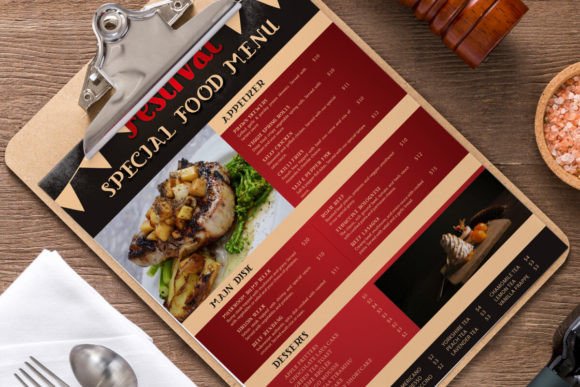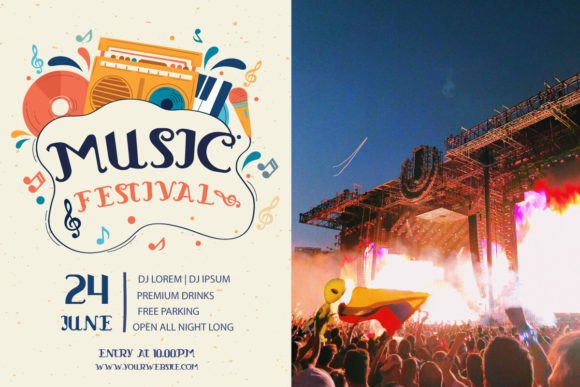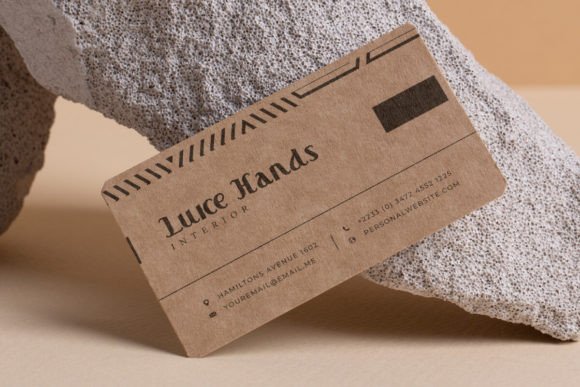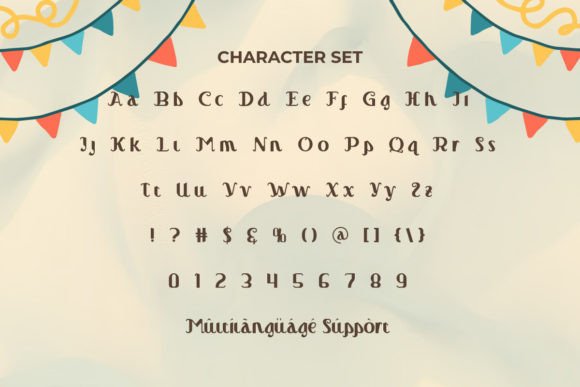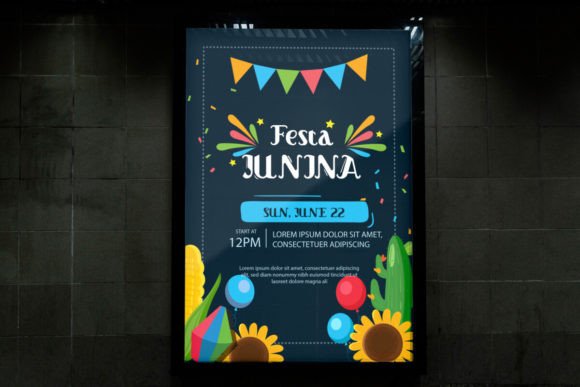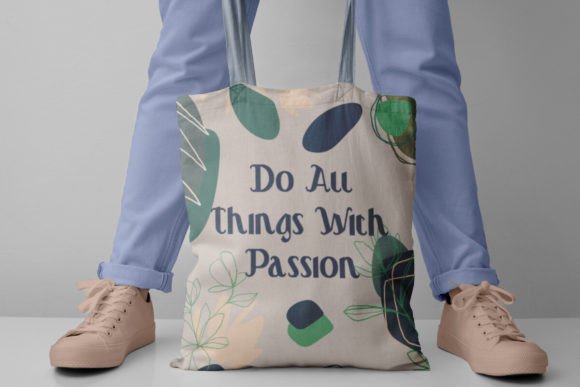
Introduction to Festival Day Font
Festival Day Font is a cheerful party themed serif display font with the vibe that will makes you feel the pleasure.
It will be good for any design, such as business card, brand logo, cover, custom design, invitation, label, magazine, menu, poster, product packaging, quote, signage, web page, and more .